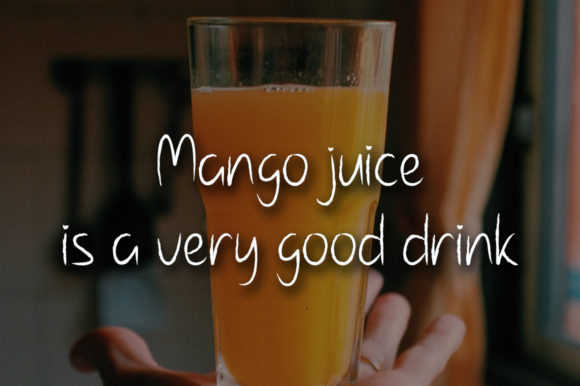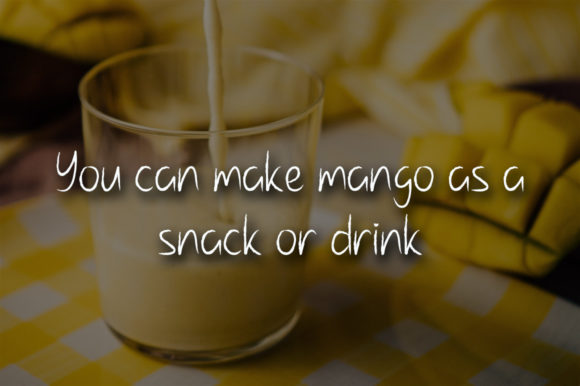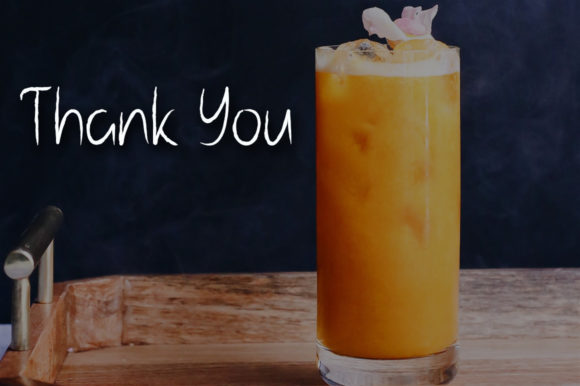
Introduction to Mango Water Font
Mango Water is a dainty and simple lettered handwritten font.
This gentle font will look gorgeous on a variety of design ideas It will add a joyful and romantic touch to each of your projects.
Key Features of Mango Water Font
Why Choose Mango Water Font?
Mango Water Font offers exceptional quality and versatility, making it a valuable addition to your design toolkit. Whether you’re creating for personal projects or commercial use, Mango Water Font delivers professional results.